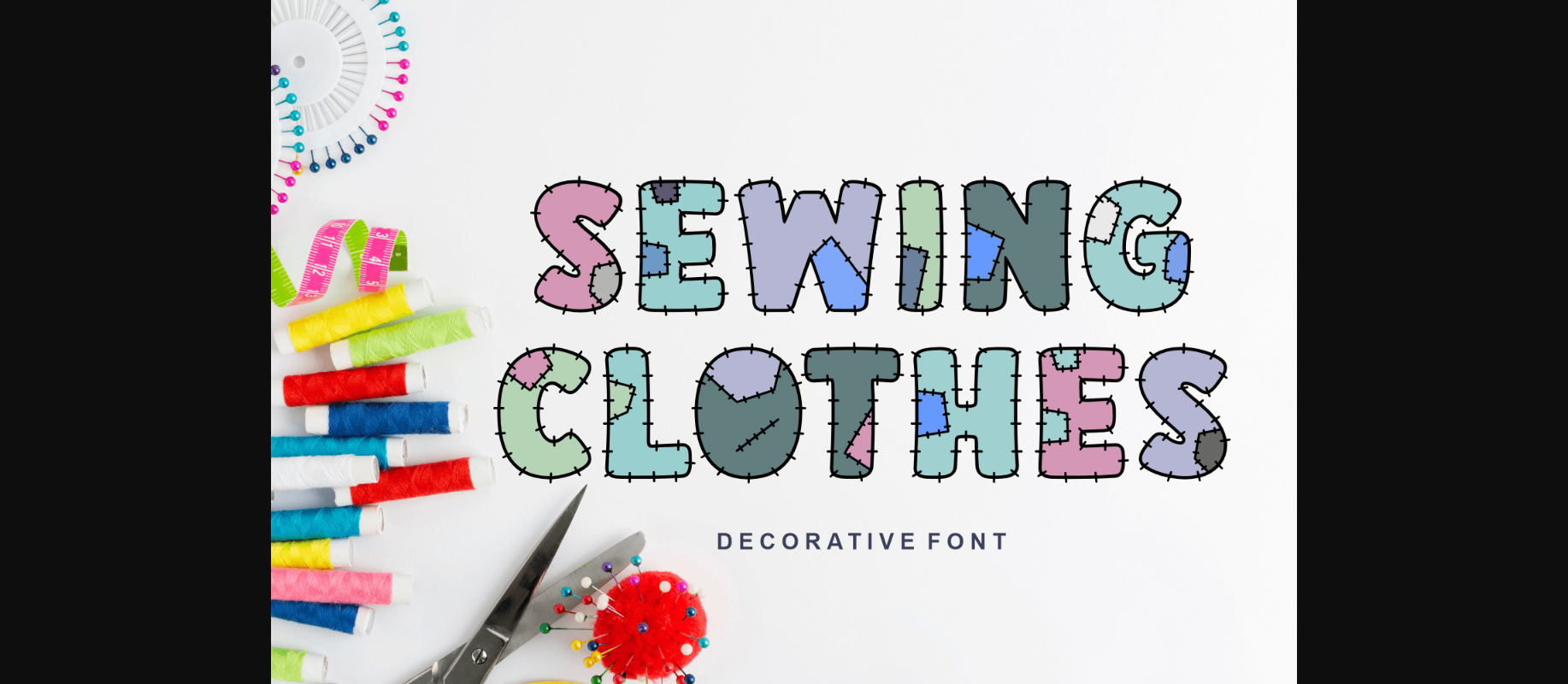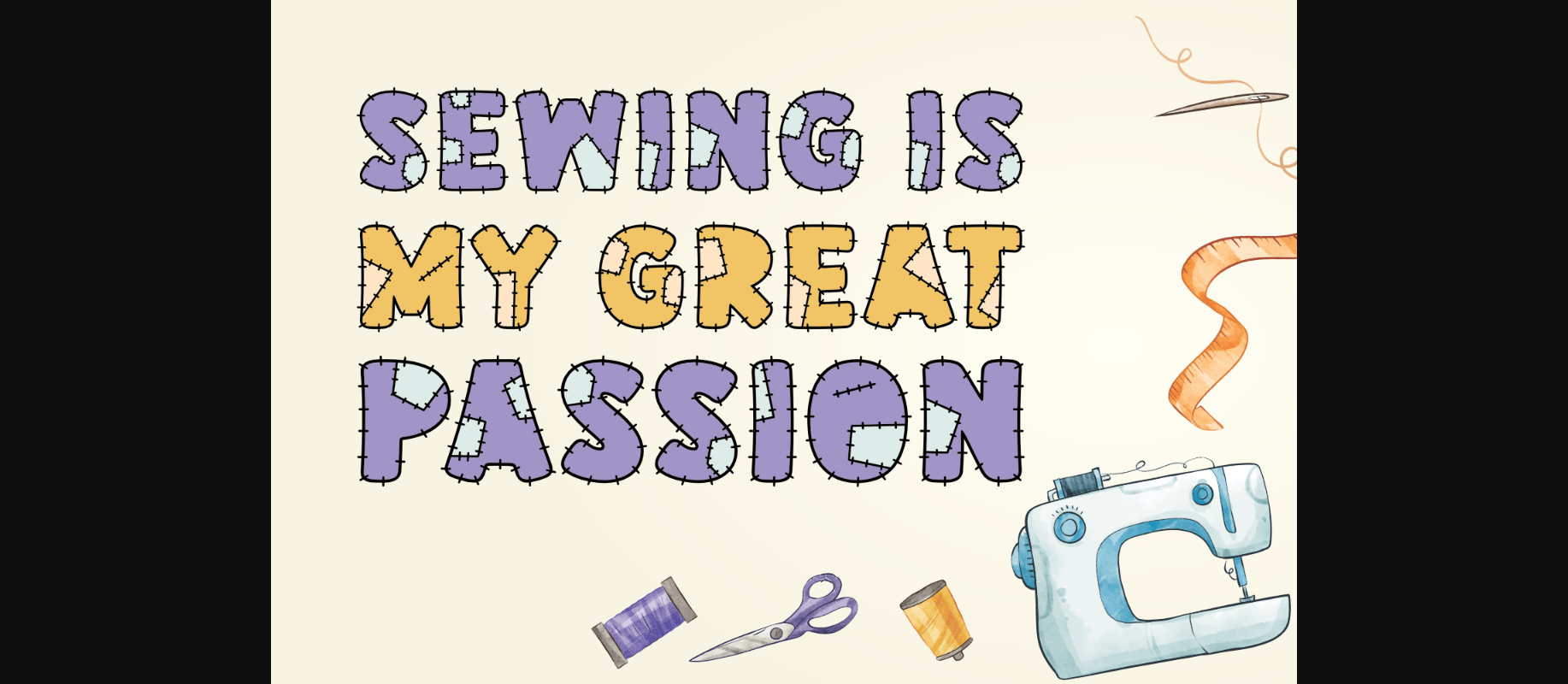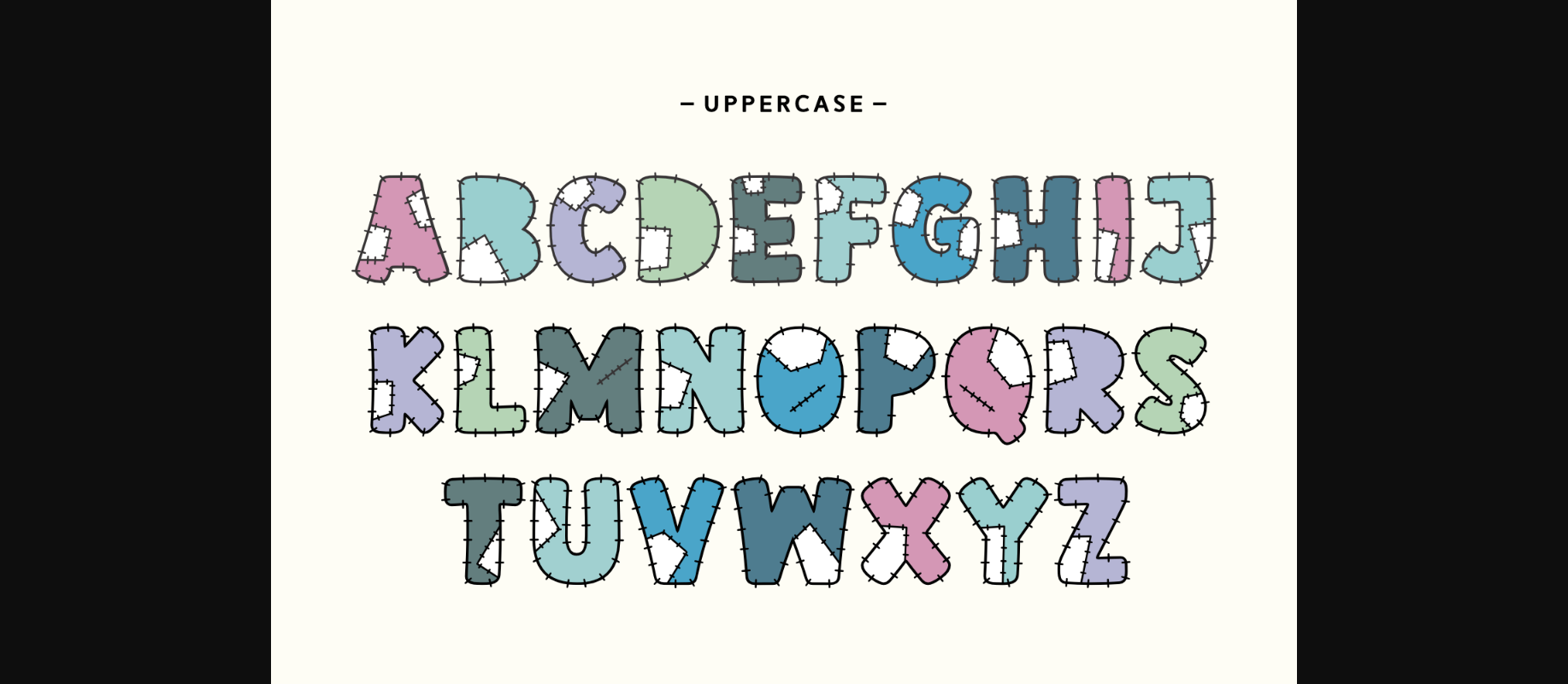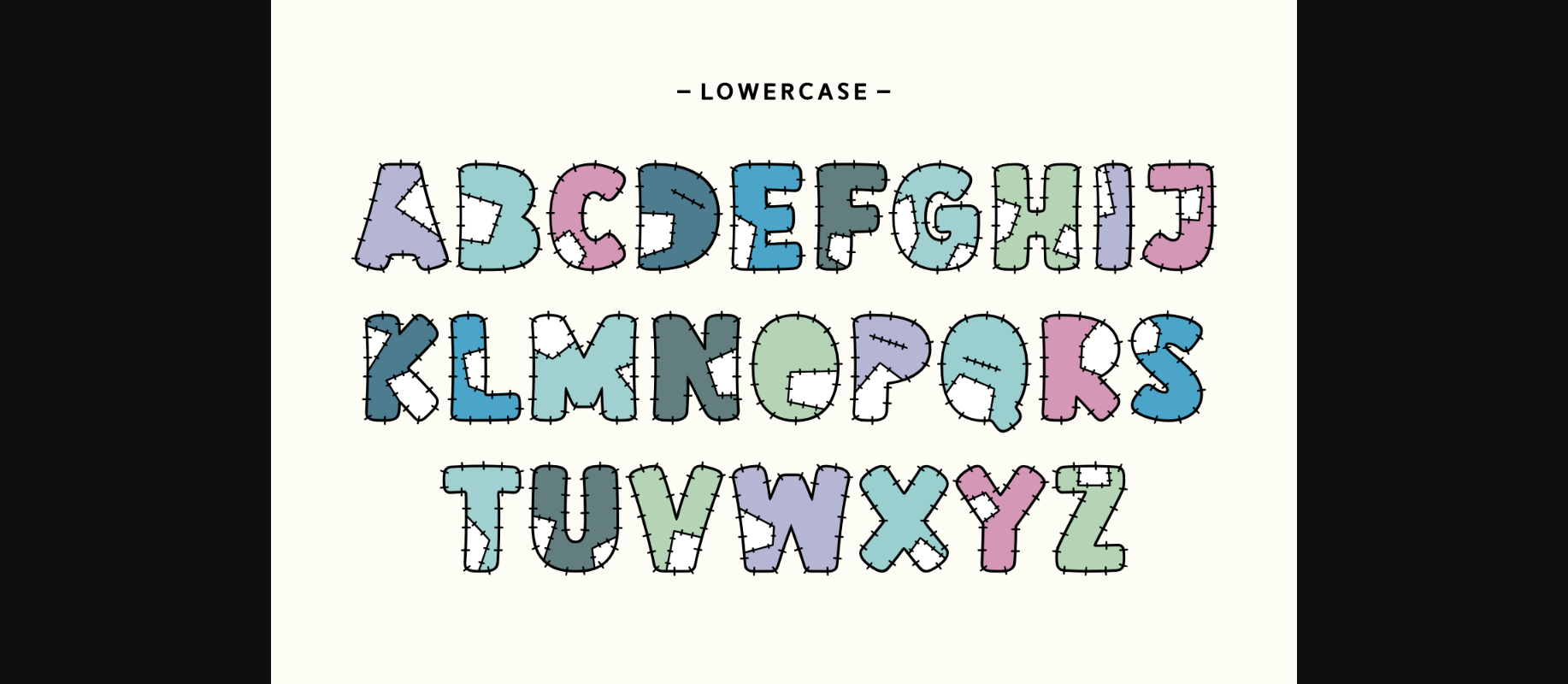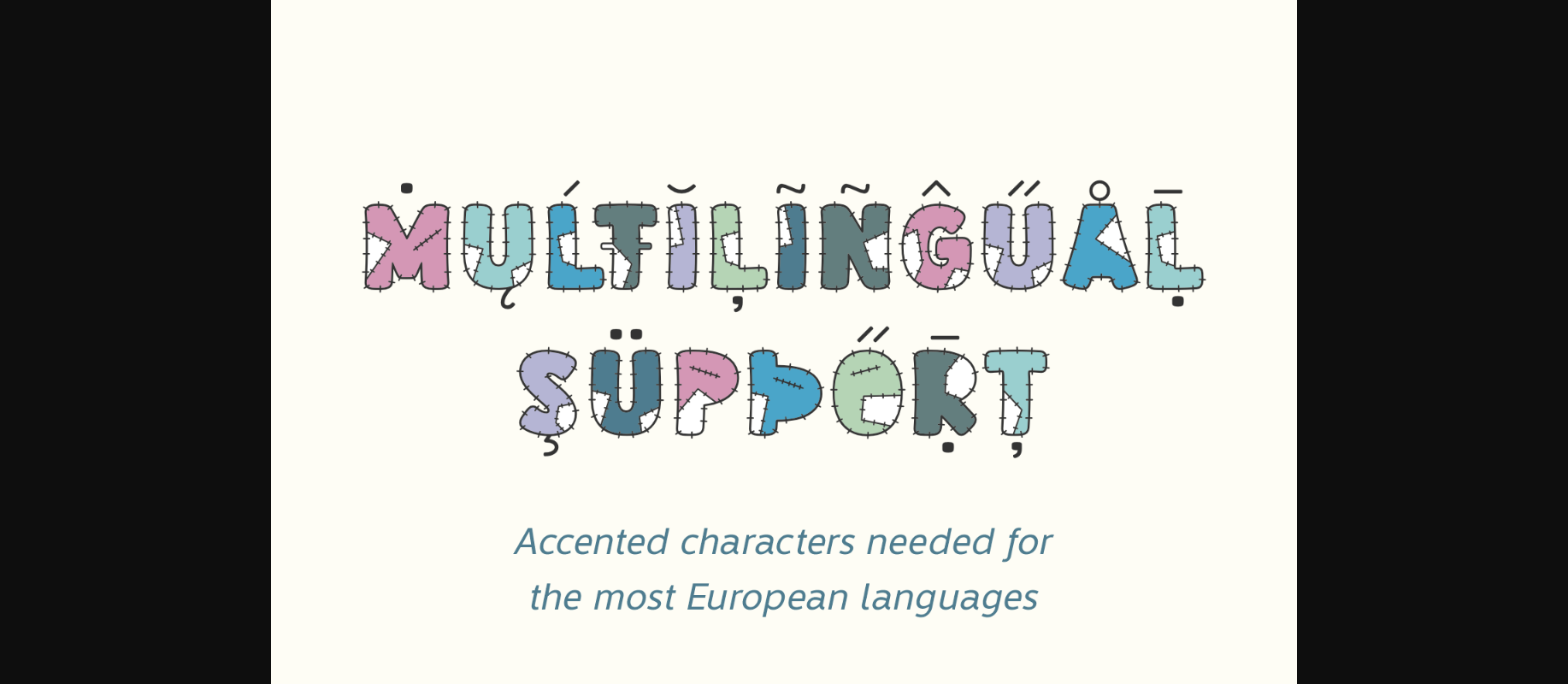
Sewing Clothes Font
About Sewing Clothes Font
Sewing Clothes is a fun and unique decorative font perfect for all crafters. Masterfully designed to become a true favorite, this font has the potential to bring each of your creative ideas to the highest level!